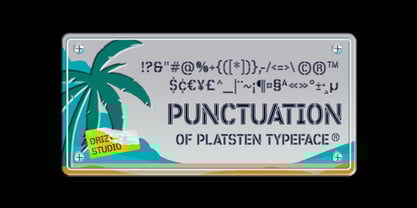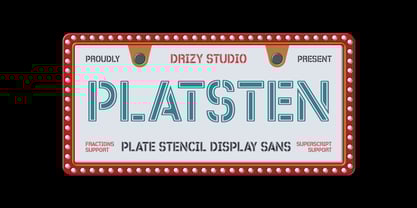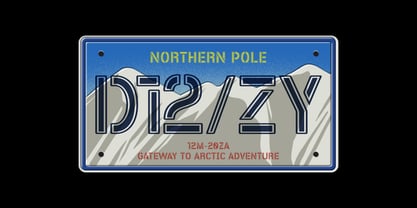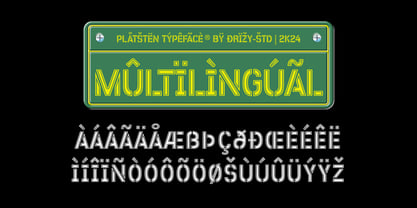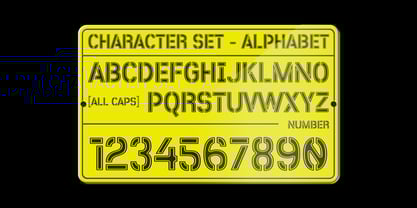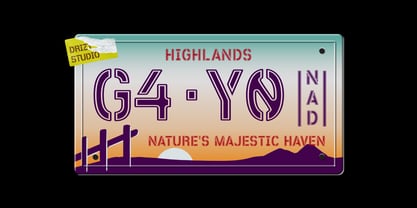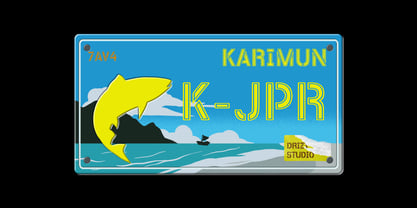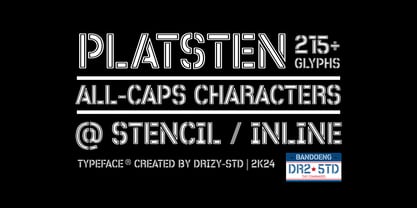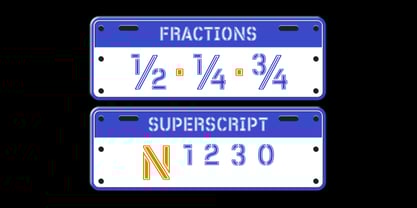
Platsten
by Drizy Font
The Platsten Font Family was designed by Panca Ahmadi Hasan and published by Drizy Font. Platsten contains 1 styles.
Platsten – Plate Stencil Display Font
Plunge into the world of creativity and innovation with Platsten, a uniquely designed License Plate display font that brings the essence of industrial chic right to your fingertips. Crafted meticulously for designers, artists, and creatives who dare to stand out, Platsten embodies boldness and originality in every character. This font is not just a typeface; it’s a statement—a blend of vintage craftsmanship and contemporary design ethos.
Platsten features:
• Character Set
• Punctuation & Numbers
• Multilingual
Designers: Panca Ahmadi Hasan
Publisher: Drizy Font
Foundry: Drizy Font
Design Owner: Drizy Font